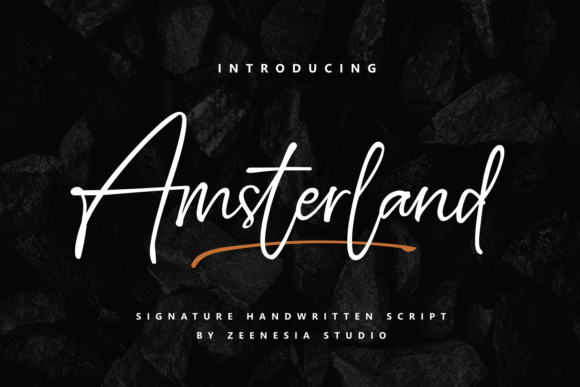
The Amsterland Font: A Delicate, Elegant, and Flowing Handwritten Beauty
I’ll never forget the design project that led me to discover the Amsterland font. I was working on a branding project for a luxury wedding planner, and I needed a font that would convey elegance, sophistication, and romance. After hours of searching through font libraries and testing out different options, I stumbled upon Amsterland. It was love at first sight! 💕
The Amsterland font is a delicate, elegant, and flowing handwritten font that has become a staple in my design toolkit. Its beautiful and well-balanced characters make it a versatile choice that matches a wide pool of designs. In this article, I’ll share my honest review of the font, provide a practical guide on how to use it, and explore similar fonts and alternatives.
- 💫 Delicate and elegant handwritten style that’s perfect for luxury brands, weddings, and high-end designs
- ✅ Well-balanced characters that work well in a variety of design contexts
- 🔥 PUA encoded, making it easy to access all glyphs and swashes
- 🎨 Highly versatile and can be used for a range of design projects, from branding to packaging
- ⚠️ Some users may find the font too delicate or thin for certain design applications
- ⚠️ May not work well with very short or very long text blocks
A Brief Backstory: Designer Inspiration
The Amsterland font was designed with inspiration from traditional Dutch calligraphy and handwriting. The font’s creator aimed to craft a font that would evoke the elegance and sophistication of Amsterdam’s canals and historic architecture. The result is a beautiful, flowing script font that’s perfect for designs that require a touch of luxury and refinement.
Q: What is the Amsterland font best suited for?
A: The Amsterland font is best suited for luxury brands, weddings, high-end designs, and creative projects that require a touch of elegance and sophistication.
Q: Is the Amsterland font available in different weights or styles?
A: The Amsterland font comes in a single weight, but its elegant and refined design makes it versatile enough to work well in a variety of design contexts.